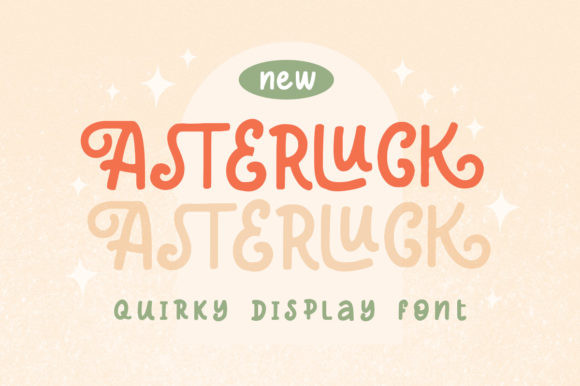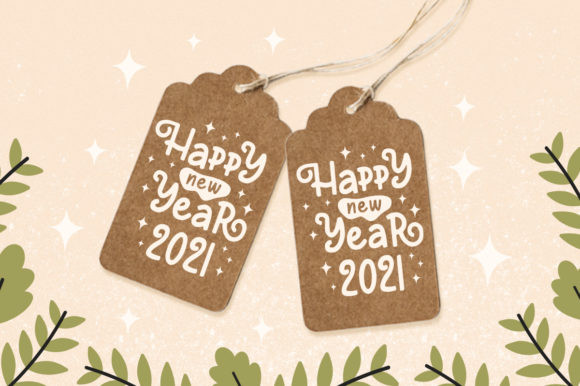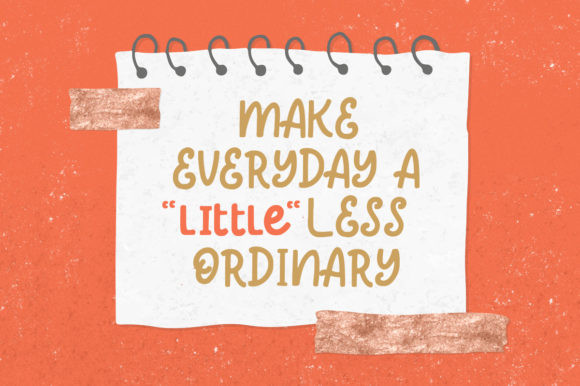
Asterluck Font
Asterluck is an incredibly veritable display font. It has a trendy, all round design and it will most certainly make each of your designs stand out.